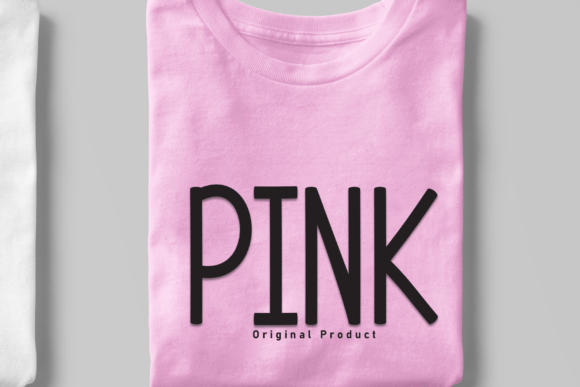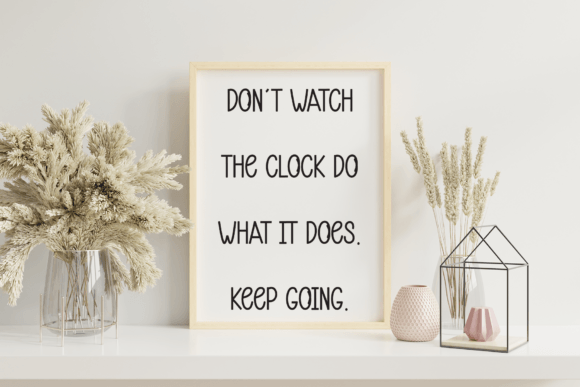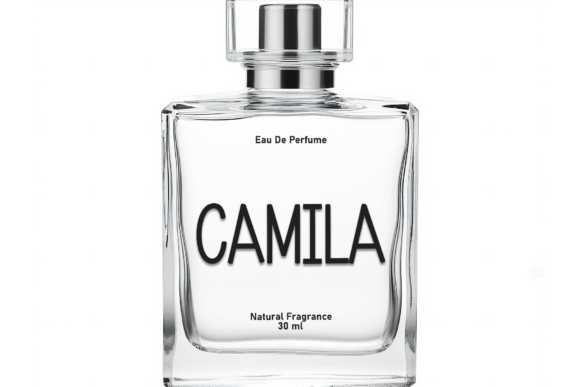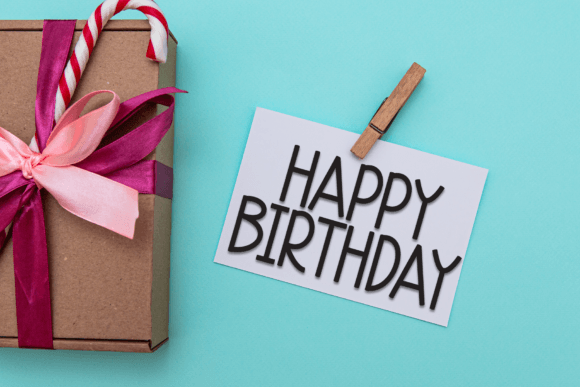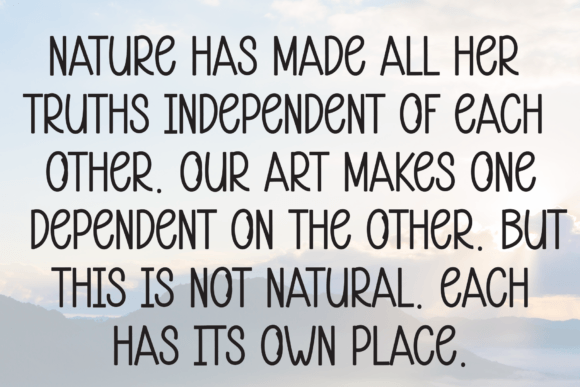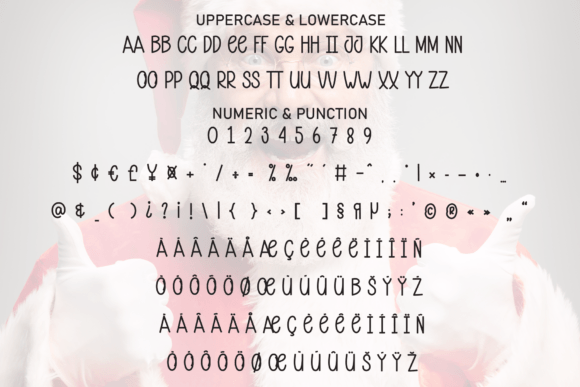
Introduction to Santa Funny Font
As designers, we’ve all been there – staring at a blank canvas, trying to capture the perfect tone for a project. You want it to be unique, yet approachable. That’s when the magic happens, and you stumble upon a font that transports you to a world of whimsy and wonder. For us, that font is the Santa Funny Font, a delightful display font that embodies the essence of playful charm.
Key Features of Santa Funny Font
- High-quality, whimsical design suitable for creative projects and holiday-themed designs.
- Unique, playful style that adds a touch of humor and festivity to any design project.
Honest Review: Santa Funny Font
As a designer, I’m always on the lookout for unique and fun design resources to elevate my creative projects. I recently stumbled upon the Santa Funny Font, and I have to say, it’s a great addition to any holiday-themed design.
What works well: ✨ The font’s playful and whimsical style makes it perfect for adding a touch of personality to your designs. The transparent background is also a plus, allowing for seamless integration with your design elements. I’ve used it for a variety of projects, from social media graphics to holiday cards, and it always brings a smile to the user’s face.
- High quality and well-designed, ensuring a professional finish
- Perfect for holiday-themed projects, such as Christmas or New Year’s Eve designs
Overall impression: I’m a big fan of the Santa Funny Font, and I think it’s a great resource for designers who want to add a little fun to their designs. Just be mindful of its limitations, and you’ll be golden!
Getting the Most Out of Santa Funny Font
Use the Santa Funny Font in a variety of creative ways, such as in social media graphics, party invitations, or holiday cards. Experiment with different font sizes and colors to add emphasis and visual interest. You can also use it in conjunction with other design elements, such as images and graphics, to create a unique and eye-catching design.
The Santa Funny Font is perfect for holiday-themed designs, such as Christmas cards, New Year’s Eve invitations, and Halloween party decorations. It’s also great for adding a playful touch to non-holiday designs, such as social media graphics and party invitations.